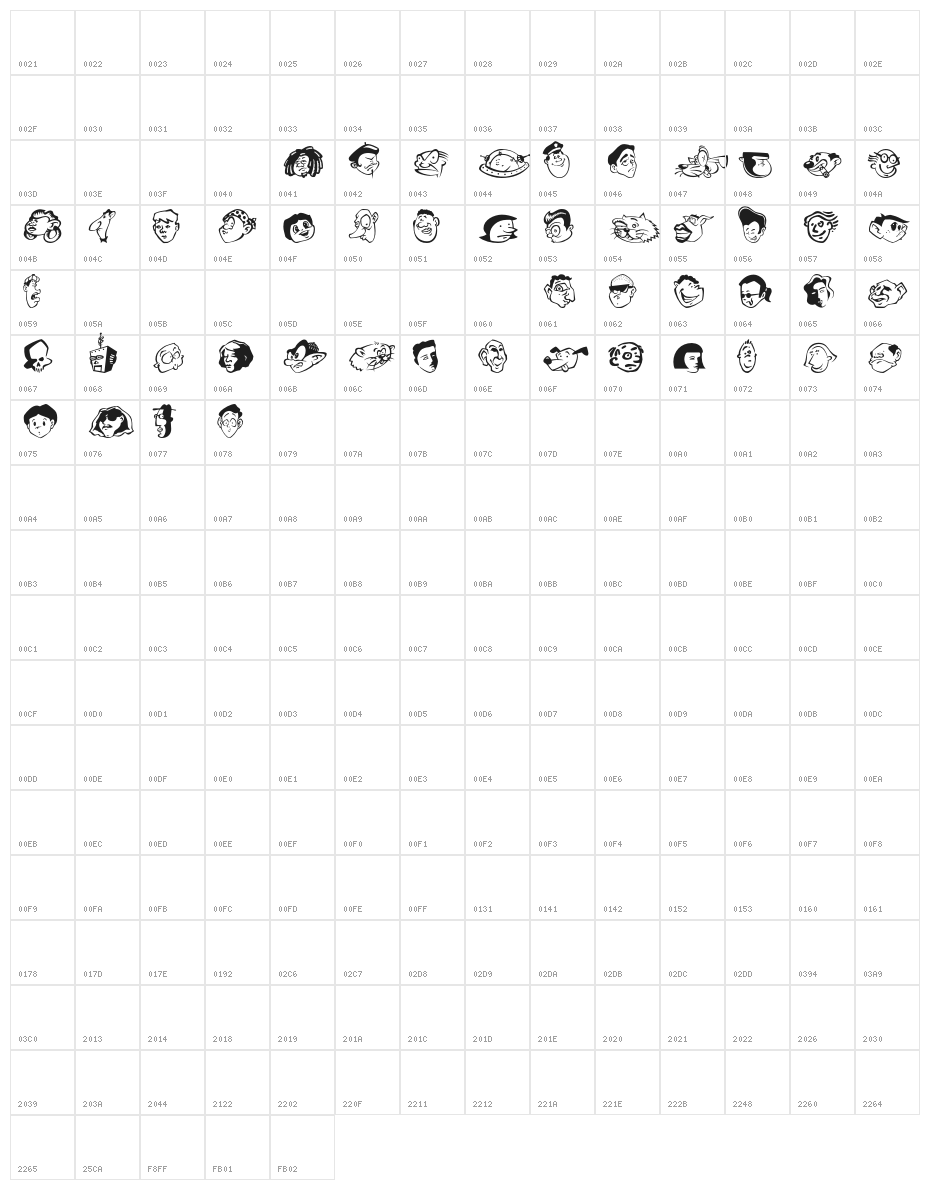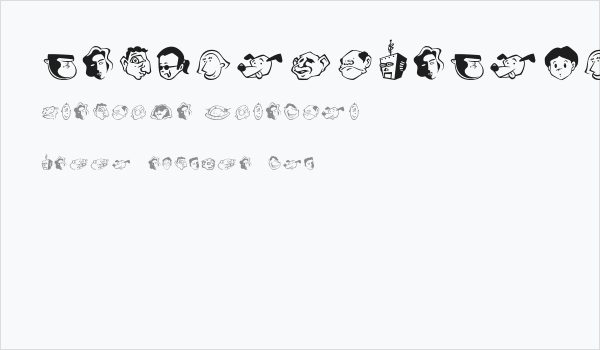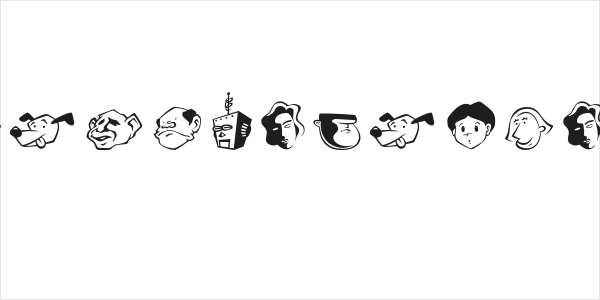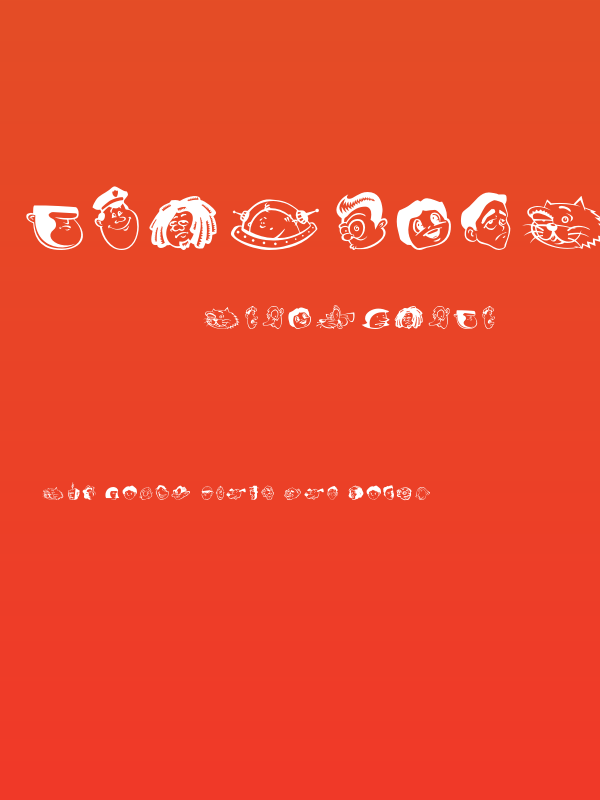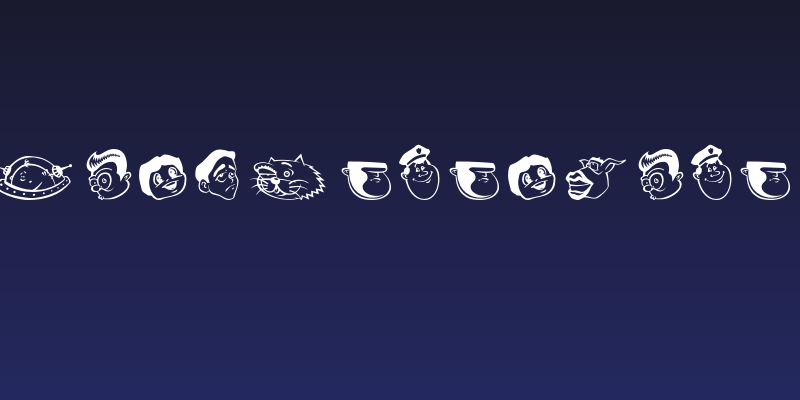
HeadsoftheHousehold Font
HeadsoftheHousehold Description
A highly decorative and playful font where each character is represented by a unique cartoonish head or face illustration, featuring bold outlines and exaggerated expressions. The style is whimsical and full of personality, with each glyph acting as an individual caricature.
| Overall Style | Decorative, Playful, Whimsical |
| Use Case | Logos, Headlines, Posters, Themed Events |
| Proposed Projects | ChildrenΓ’β¬β’s books, comic titles, party invitations, playful branding, posters, novelty merchandise. |